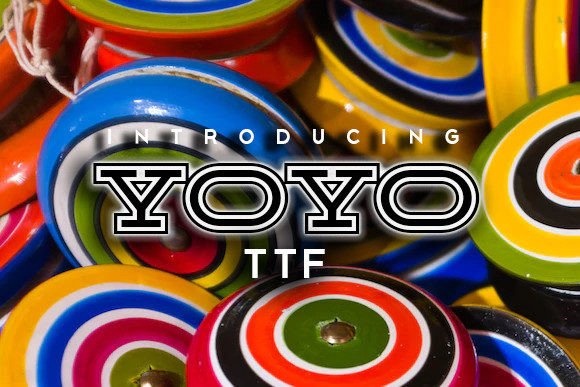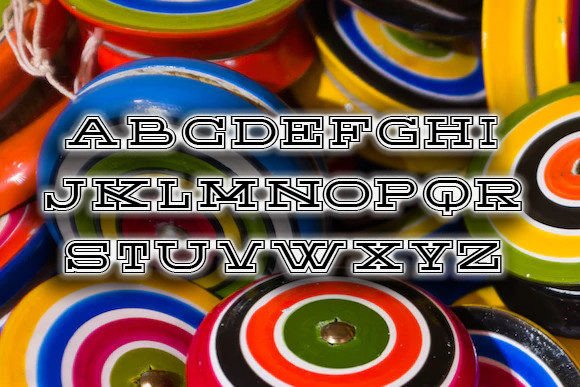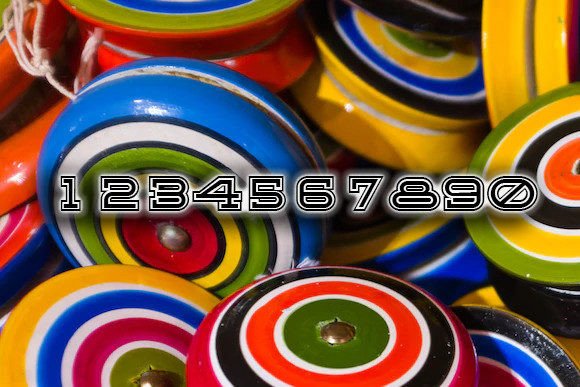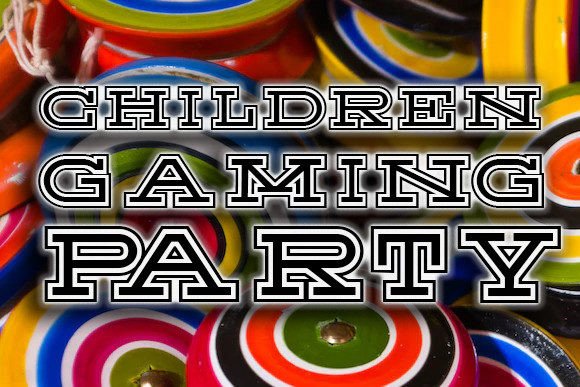
Yoyo: A Stylish Old-School Slab Serif Font
Yoyo is a stylish old-school slab serif font that combines great readability with vintage character. This versatile typeface is perfect for various print applications, particularly posters and shirts.
Key Features of Yoyo
- Old-School Design: Offers vintage-inspired letterforms.
- Stylish Character: Brings retro appeal to designs.
- High Readability: Features clear, legible letterforms.
- Print-Friendly: Perfect for various print applications.
Best Uses for Yoyo
Thanks to its distinctive characteristics, Yoyo works especially well for:
When using Yoyo in your designs, keep these tips in mind:
- Try it for headlines or display text to showcase its old-school style.
- Use different sizes to highlight its readable features.
- Let its vintage character enhance retro-inspired projects.
- Take advantage of its clarity for print applications.
To sum up, Yoyo is an excellent choice for designers seeking a stylish old-school slab serif font with great readability. Its versatility makes it perfect for various print projects. Whether you’re creating posters or designing t-shirts, Yoyo offers the perfect blend of vintage style and clear legibility.
Furthermore, Yoyo’s distinctive design allows it to shine in contexts where both style and readability are key. For instance, from posters to t-shirts, this font can elevate your projects with its retro appeal. Also, its old-school yet readable appearance works particularly well in designs that aim to make a vintage impact.
In conclusion, Yoyo truly captures the essence of old-school design in slab serif typography. Its ability to enhance print applications while maintaining readability shows how well it can serve creative needs. Therefore, for those wanting to add a touch of vintage style to their work, Yoyo can transform any design with its distinctive character. Ultimately, it’s perfect for designers aiming to make a stylish, readable impact across print-focused projects.